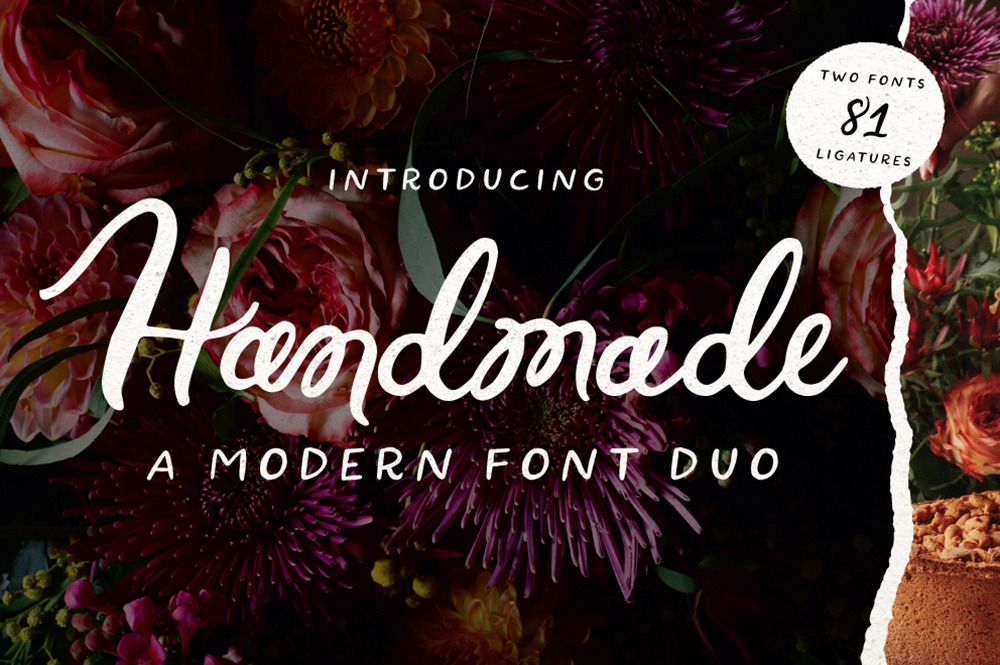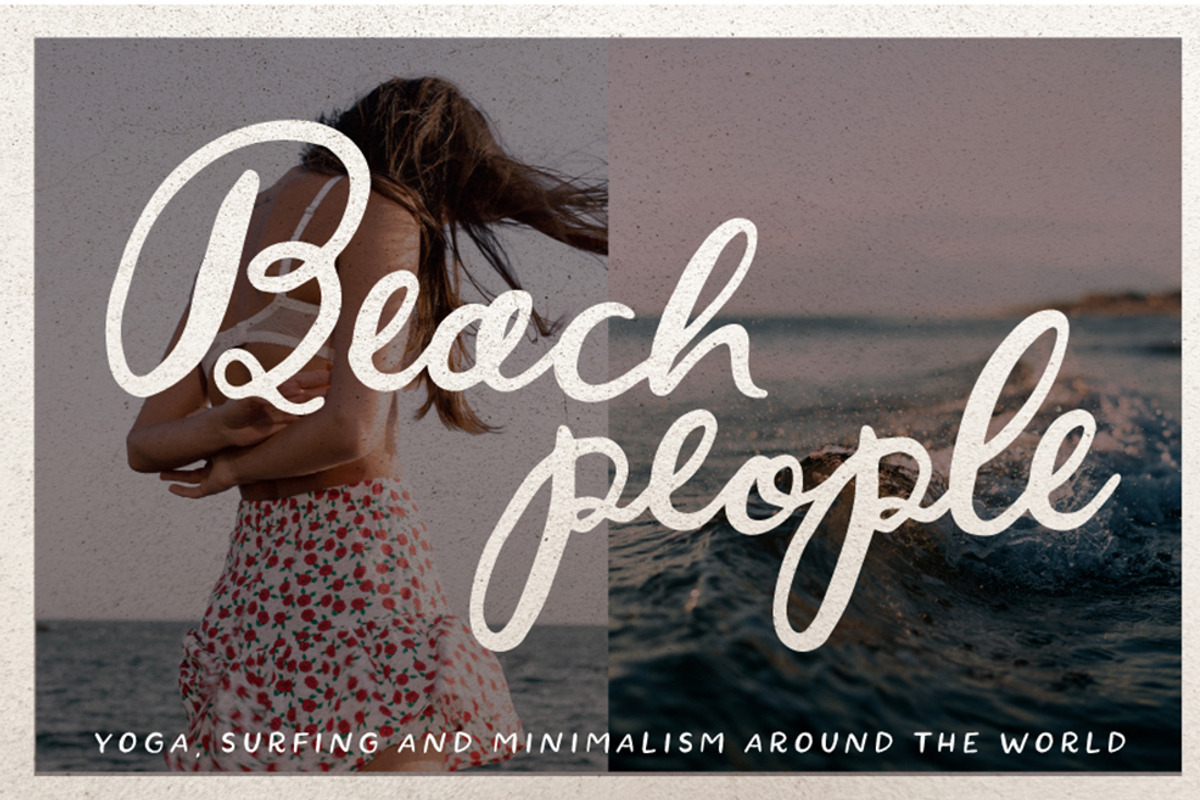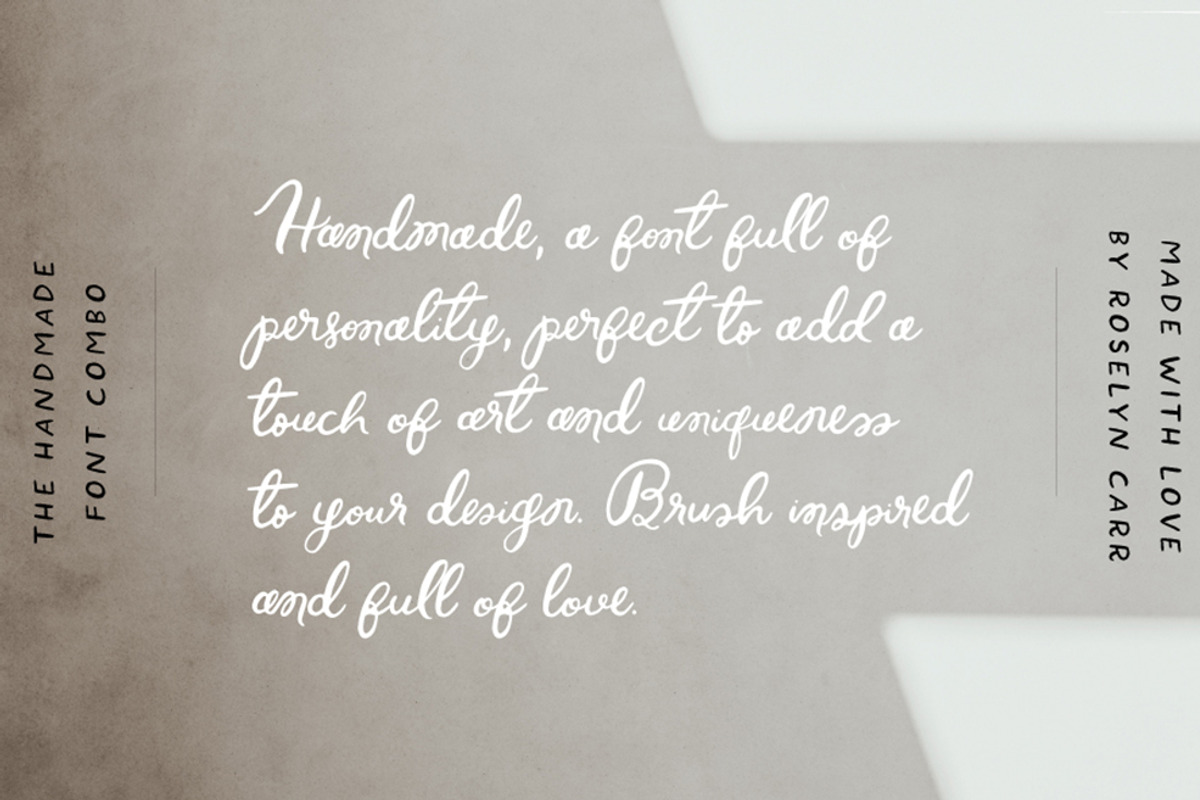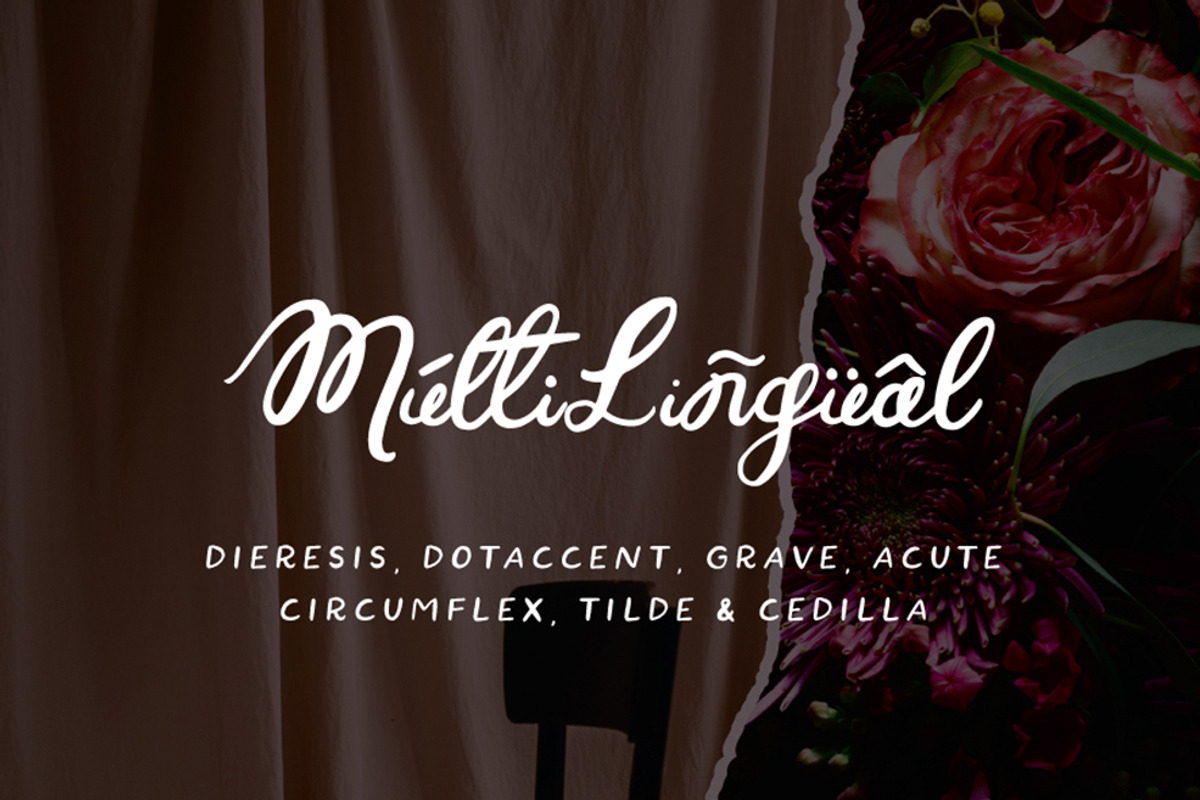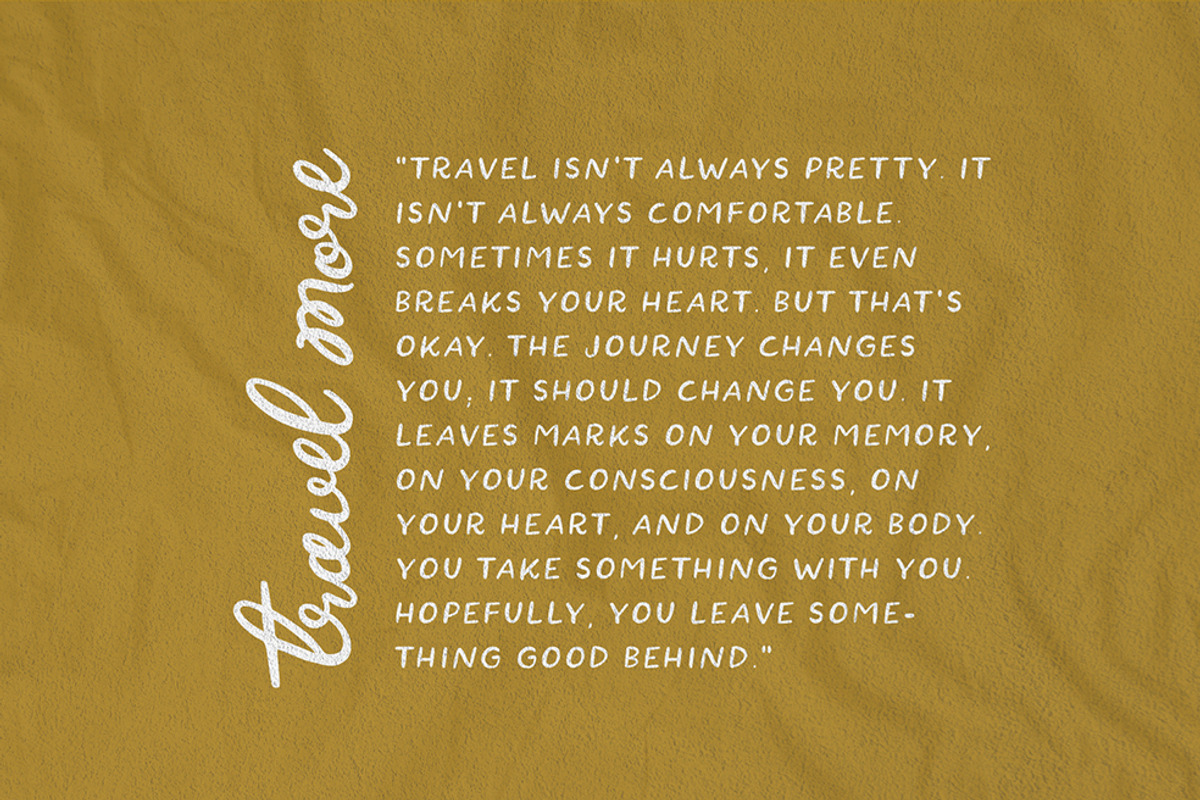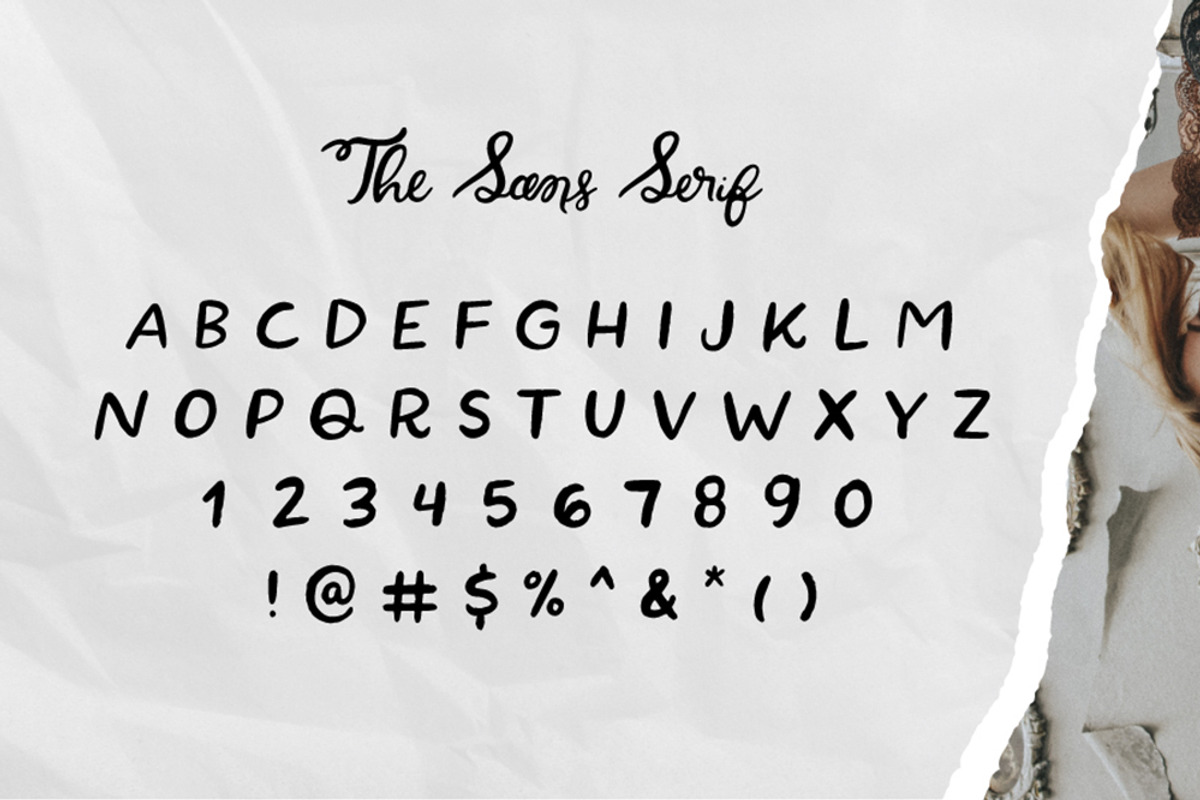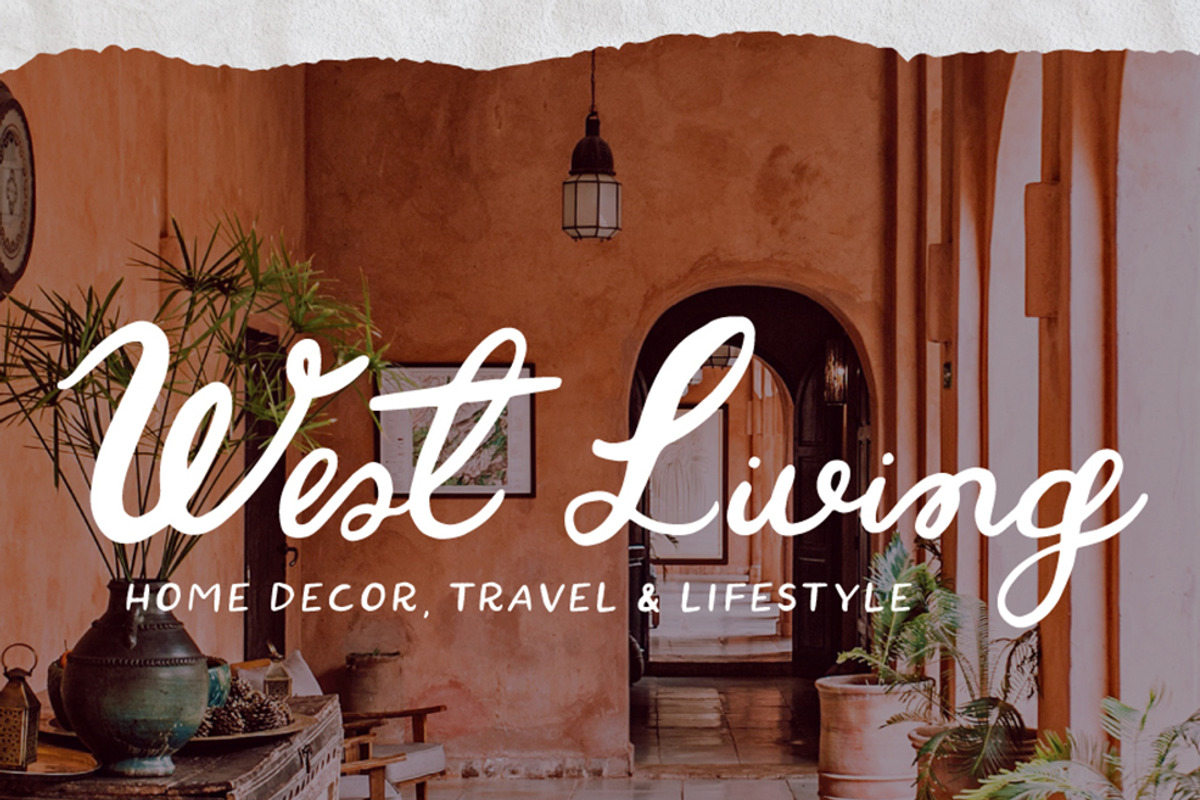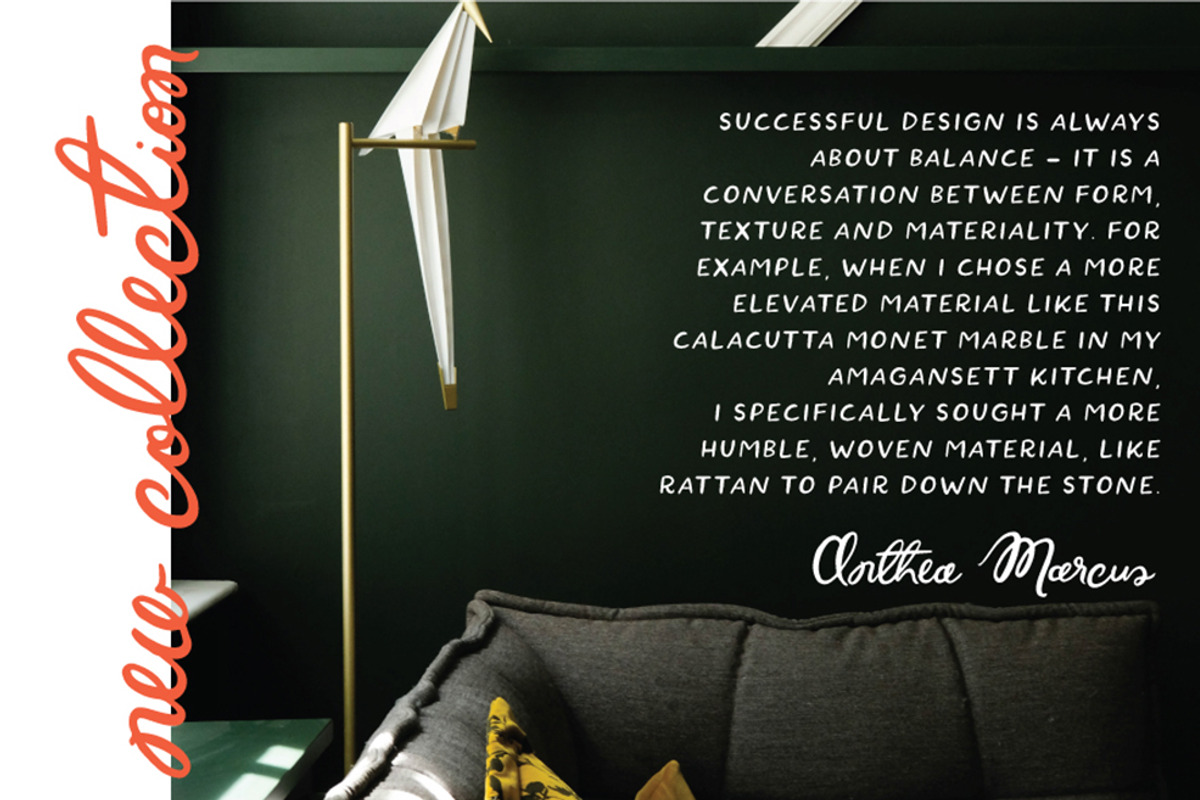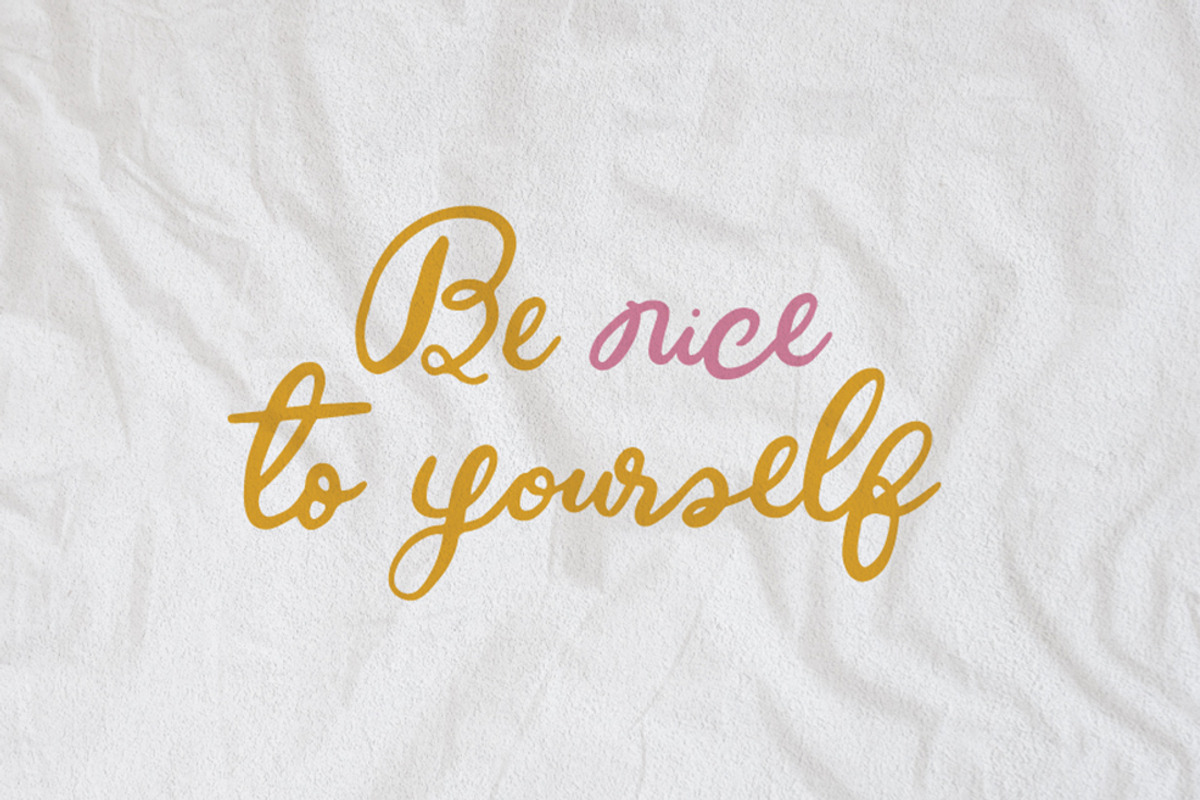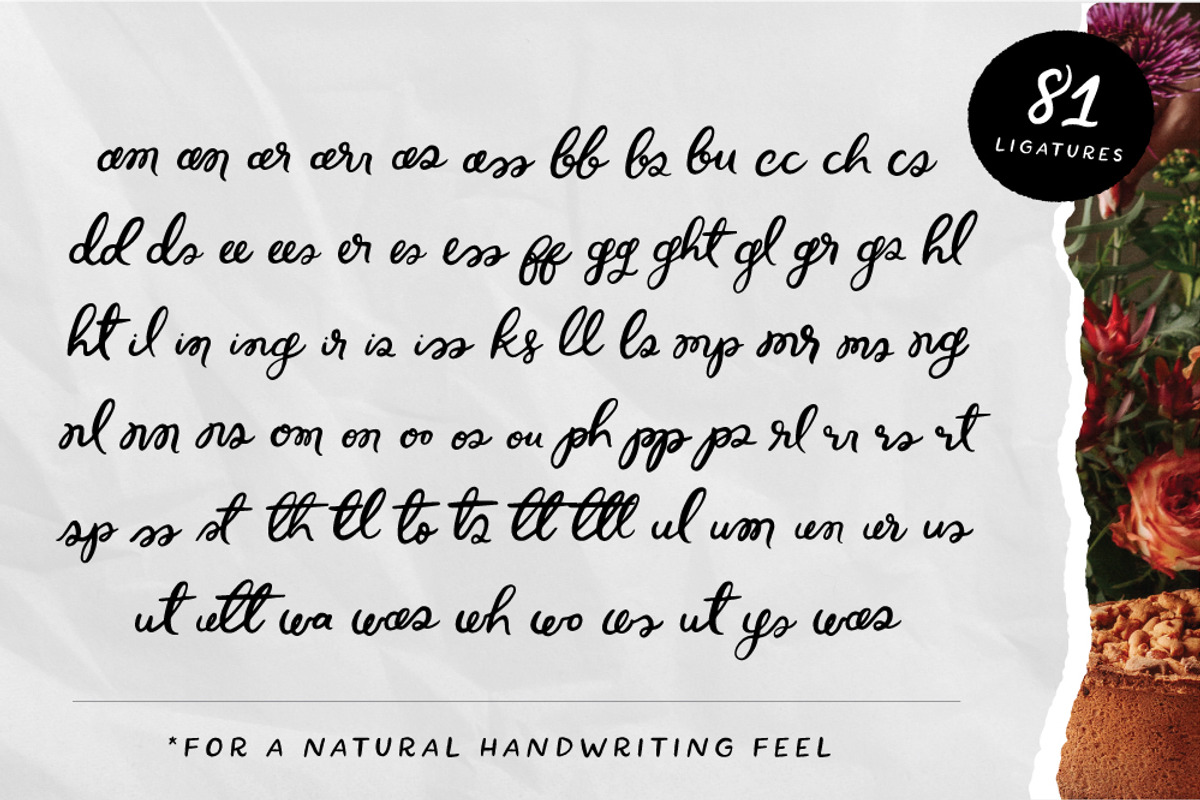
Handmade Font Duo Script Sans Serif
Handmade is a Font Duo, including two fonts: a script and a sans serif version. This font has been inspired by natural brush strokes, making it organic and natural. It has been designed with 81 ligatures to make every word unique for a natural handwriting feel.
Lots of different glyphs make this font a staple on your design projects or logos, even it's perfect for body texts.
Use it for branding, titles, logos, stationery, body texts, and more.
This font includes 81 different ligatures with common letter combinations to make your design text pop up with a charming style.
- Full upper and lowercase
- Accents (Multi-lingual support) including ˆ´ `¨ ¸ ~
- 81 unique ligatures